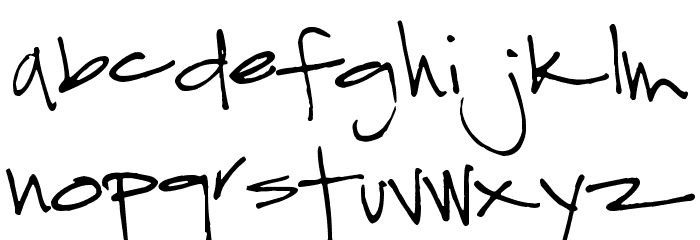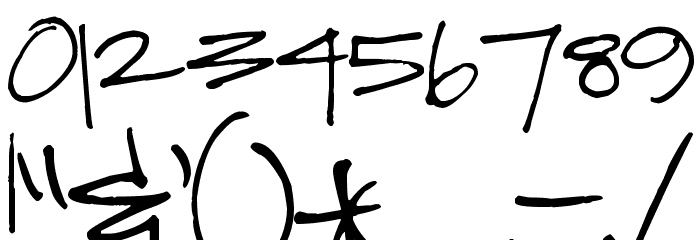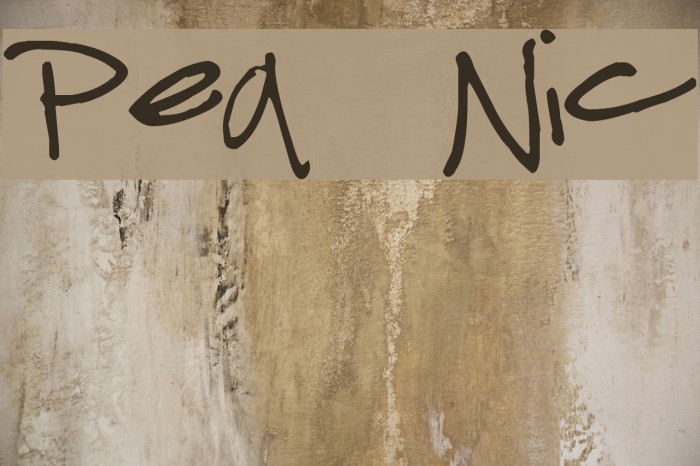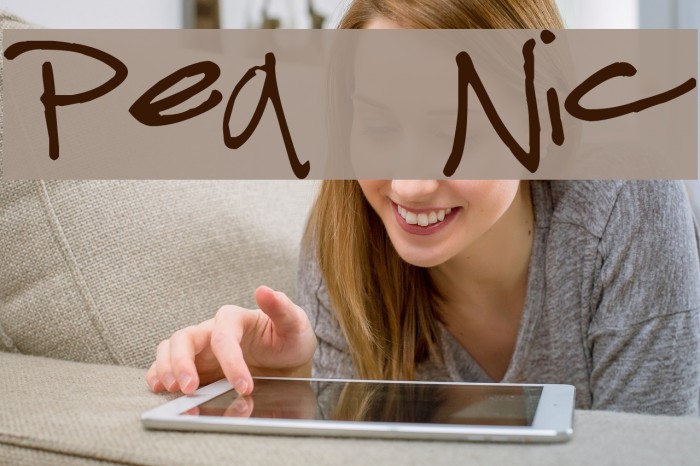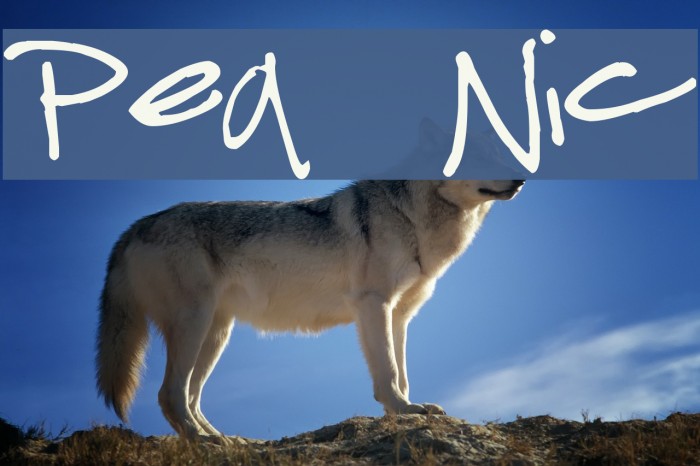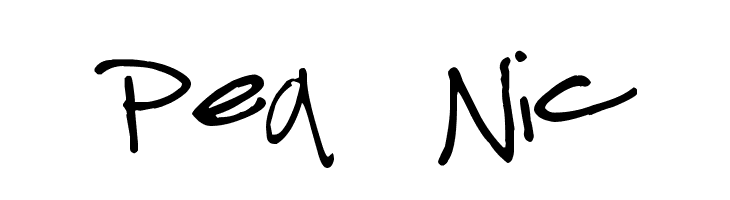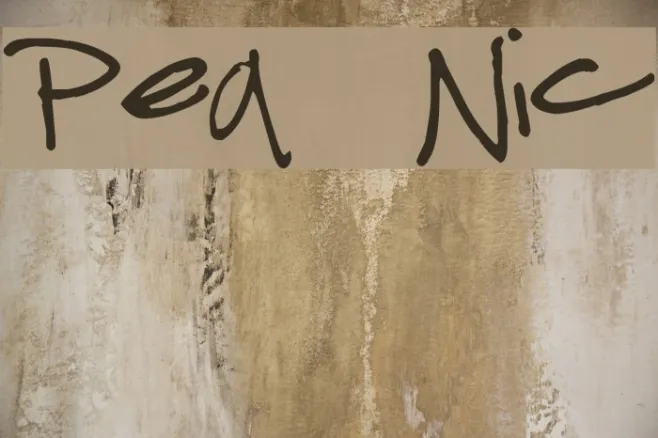
Pea Nic Font
This font features a playful and casual handwritten style, characterized by its loose and flowing strokes. The letters have a natural, organic feel, with varying line thickness that adds to its informal charm. The uppercase and lowercase letters maintain a consistent style, while the numerals and special characters blend seamlessly with the overall design. The font's irregularities give it a personal touch, making it suitable for projects that require a human element or a relaxed vibe.
A playful, casual handwritten font with flowing strokes and a natural feel.
- Proposed Projects: Ideal for greeting cards, personal notes, informal invitations, and creative projects that require a personal touch.
- Category: Handwritten
- Overall Style: Casual, Playful
- Use Case: Headlines, Informal text, Creative projects